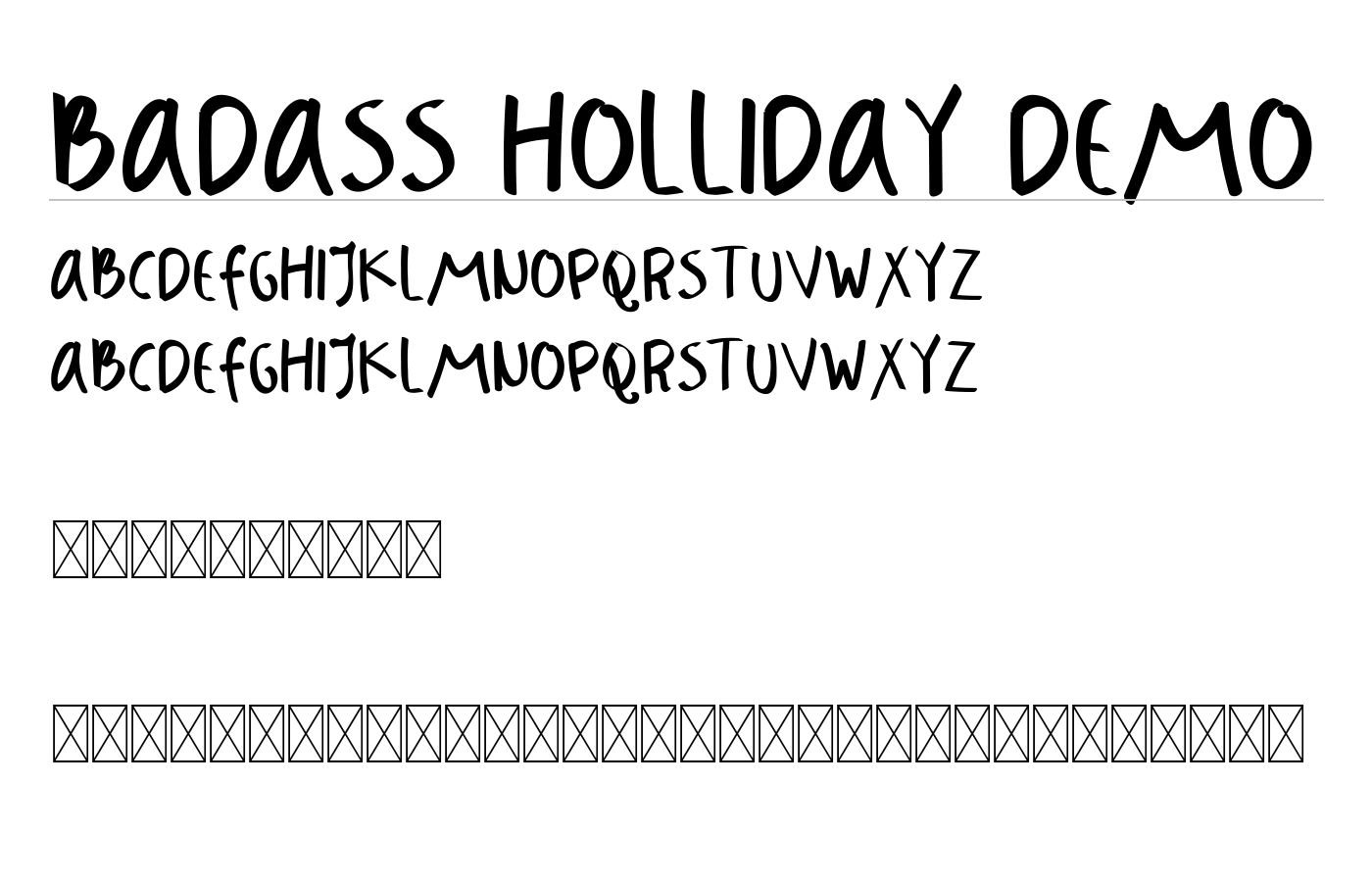
Badass Holliday Demo is a playful, hand-drawn sans serif font with a casual and energetic feel. Its irregular stroke widths and lively letterforms give it a friendly, approachable vibe ideal for fun, informal designs such as posters, social media graphics, and children’s projects. This font works best where a personal, handmade touch is desired to create warmth and spontaneity.
Badass Holliday Demo Font
About Badass Holliday Demo Font
| Font family | Badass Holliday Demo Font |
| Designer | Yasri |